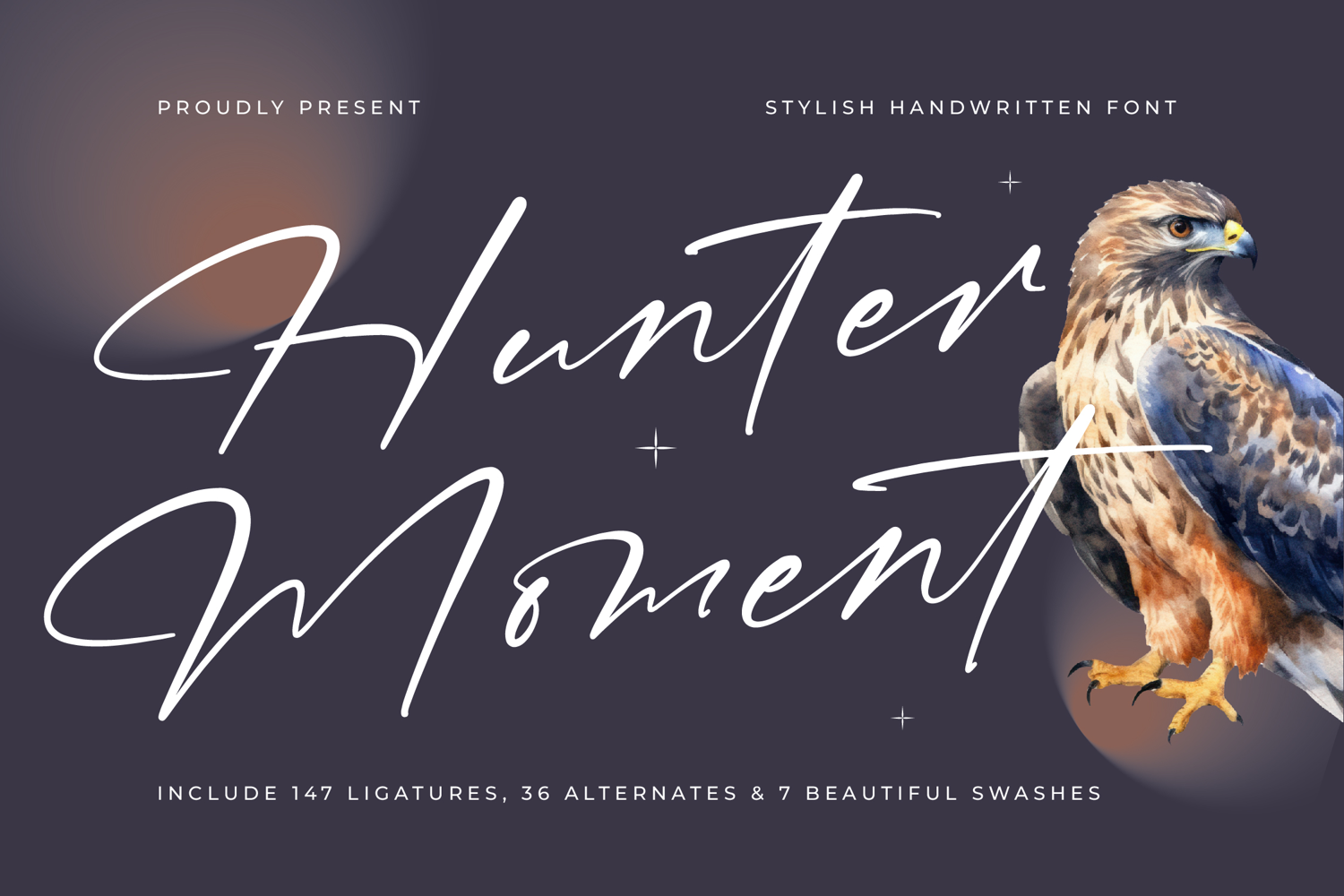
Hunter Moment - Stylish Handwritten Font
Hunter Moment Italic
Hunter Moment
Hunter Moment - Stylish Handwritten Font adapts seamlessly across global markets, making it incredibly versatile for international projects. This comprehensive language support ensures that whether you are designing for Europe, the Americas, or beyond, the elegant character and sophisticated aesthetic of Hunter Moment - Stylish Handwritten Font remain intact and highly accessible for any creative challenge.